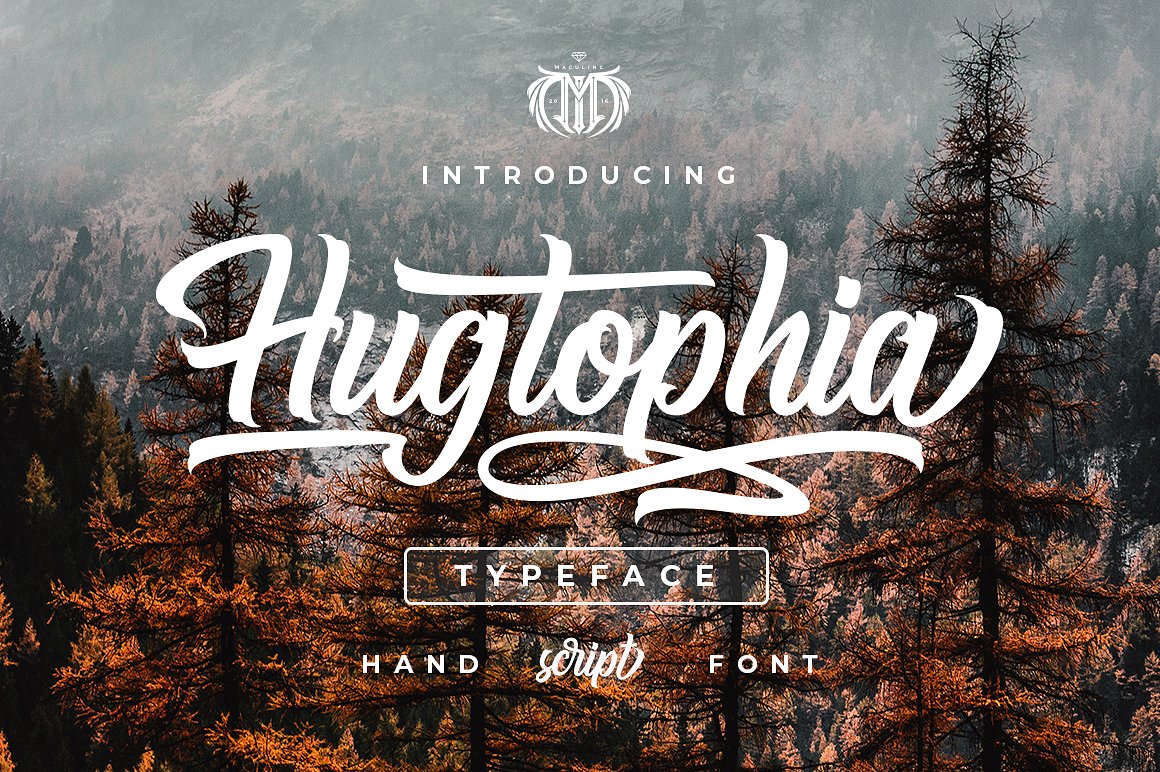
Hugtophia
Hugtophia Typeface
Hugtophia is a simple typography and easy to read so comfortable to wear. You can use them as logos, badges, packaging, headlines, posters, t-shirts / clothing, greeting cards, business cards, and wedding invitations and more. The flowing character is ideal for creating interesting messages to your taste.